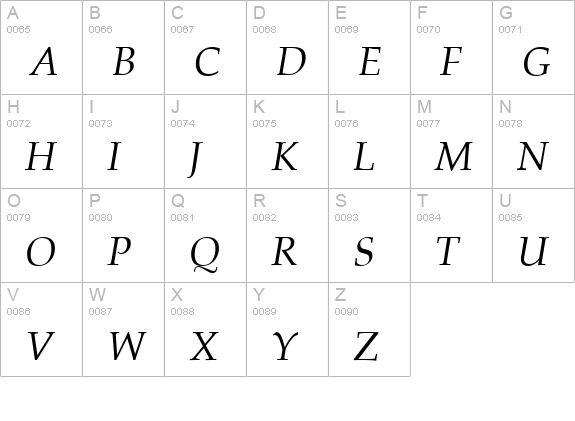
QTPalatine Italic Font Details
QTPalatine Italic is a distinctive, italic variant in the QTPalatine typeface family \xE2\x80\x94 well suited to design and typography projects.
QTPalatine Italic is a sleek and elegant font that effortlessly combines the classical beauty of Palatine typeface with a modern twist. Its refined and graceful curves exude sophistication, making it perfect for a wide range of design projects. This font is characterized by its delicate slant and subtle italicized details, adding a touch of personality and flair to any text. Whether used for headings, logos, or body text, QTPalatine Italic brings a sense of refinement and professionalism that is sure to captivate readers. One of the most appealing features of QTPalatine Italic is that it is available for free download at FontsMarket.com. This means that designers and typographers alike can access this stunning font without any cost, allowing them to explore its versatility and incorporate it into their projects without breaking the bank. Furthermore, QTPalatine Italic is incredibly versatile, adapting effortlessly to various design styles and themes. Its timeless elegance makes it suitable for both classic and contemporary designs, while its legibility ensures that the message is effectively conveyed. The attention to detail in QTPalatine Italic is evident in its carefully crafted letterforms and balanced spacing. Each character is meticulously designed to maintain harmony and readability, ensuring that every word set in this font is a visual delight. With its sophisticated charm, QTPalatine Italic adds a touch of class to any design project, be it print or digital. Its versatility, combined with its free availability on FontsMarket.com, makes it an invaluable asset for designers and typographers seeking a font that effortlessly combines beauty and functionality. In conclusion, QTPalatine Italic is a font that embodies the perfect blend of classic elegance and contemporary style. With its free availability to download at FontsMarket.com, it is a must-have for designers who seek a font that exudes sophistication and versatility.